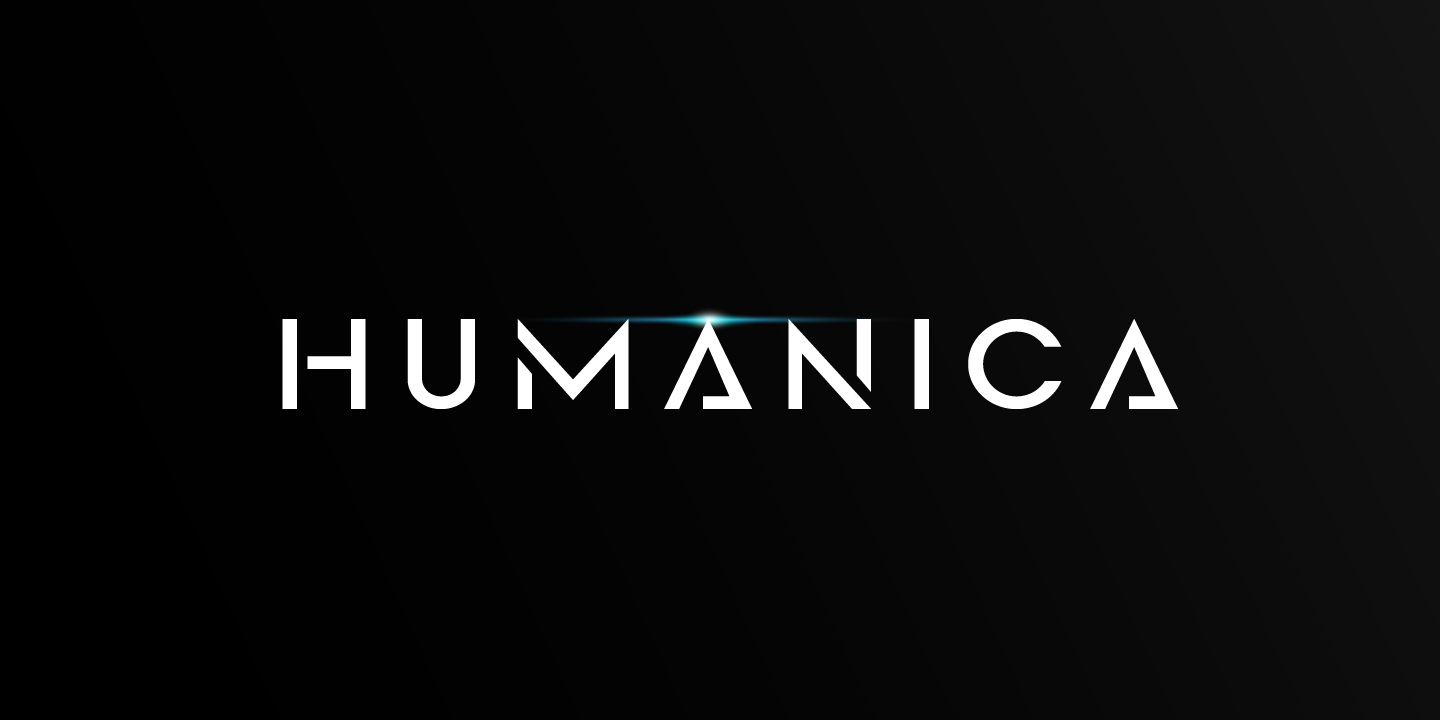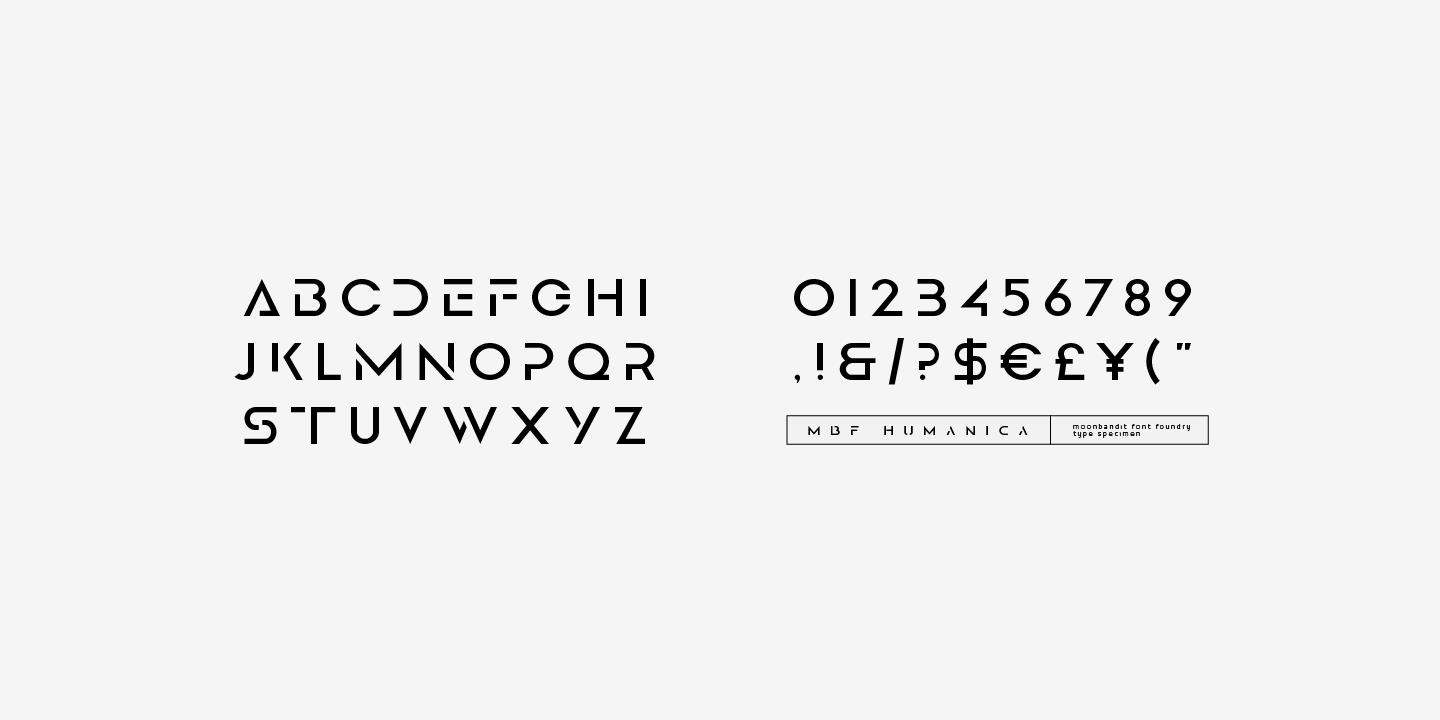
MBF Humanica
Humanity last resort
Humanica is a display font intended for logo usage, wordmark, logotype and headline. Humanica typeface sharp edges and clean lines emphasize the modern futuristic scifi theme. This font comes in all uppercase, numbers and few punctuations and symbols